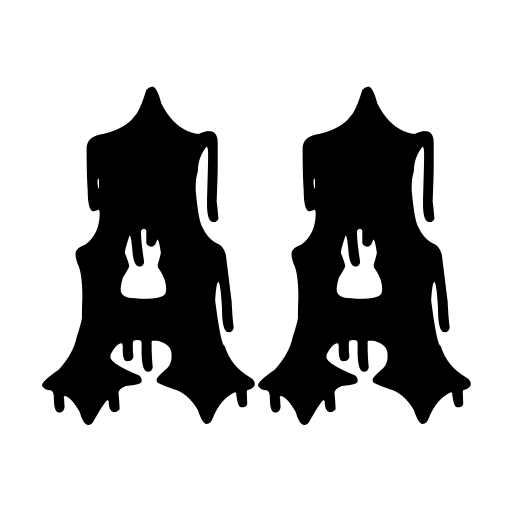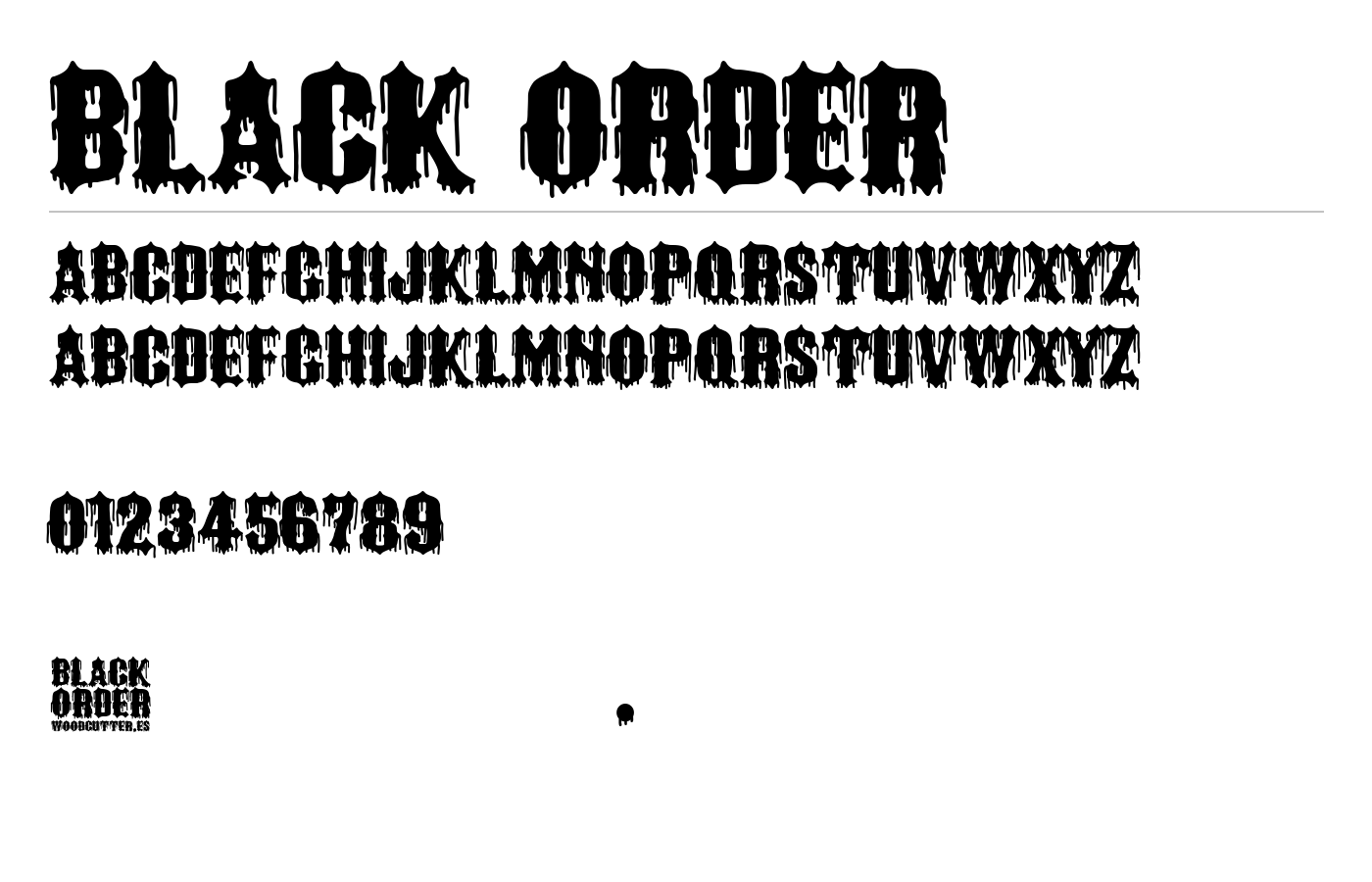
Black Order is a bold serif display font with a dark, dripping effect that gives it a spooky, horror-inspired vibe. Its heavy weight, condensed width, and strong, jagged serifs create a striking and dramatic look, perfect for Halloween themes, horror movie posters, or edgy branding that demands attention. This font works best in large sizes for headlines or logos where its unique, eerie style can shine.
Black Order Font